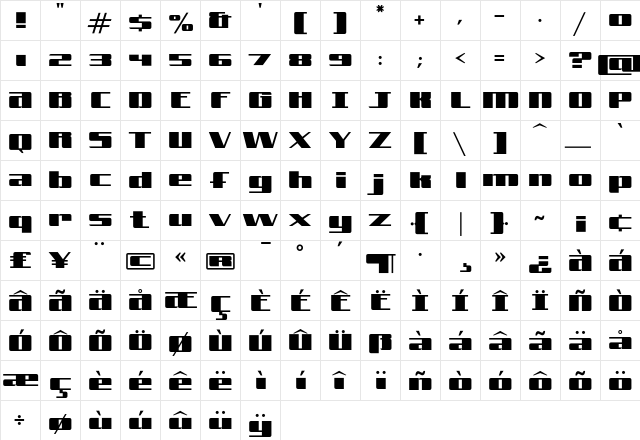
FreeLine Normal Font Preview
FreeLine Normal
Design Context for FreeLine Typeface
FreeLine is a composed and adaptable typeface that performs quietly and consistently across a wide range of design contexts.